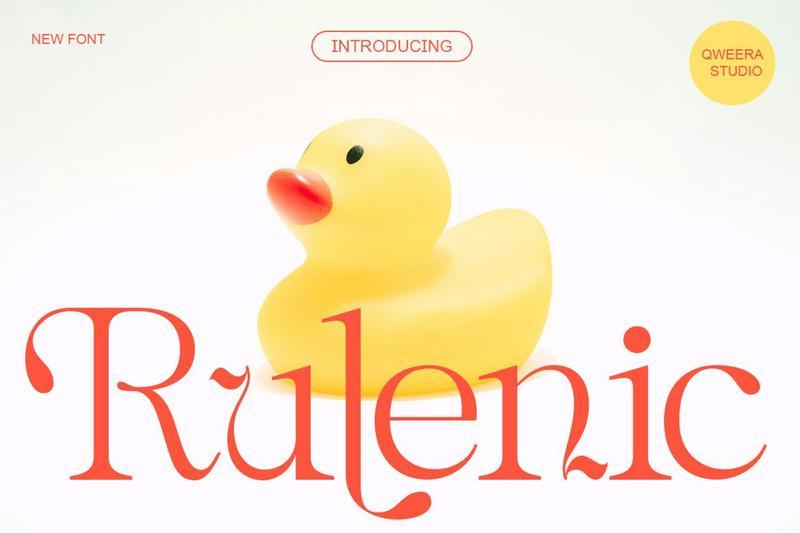
Playful Modern Serif Branding – Rulenic ZEEW2YZ
**Rulenic** is a playful modern serif typeface designed to bring cheerful personality, cute charm, and stylish creativity into modern design projects. Featuring soft curves, fun alternates, and expressive ligatures, this font creates a friendly typographic presence with strong visual appeal.
Perfect for kids branding, toy packaging, birthday invitations, children books, nursery decor, playful logos, product labels, creative merchandise, and cheerful social media graphics.
Rulenic blends cute display character with modern serif structure, making it an excellent choice for designers seeking a fun, memorable, and polished font for bright creative projects.
**Features**
**Perfect For**
Kids branding, toy packaging, birthday invitations, children books, playful logos, product labels, creative merchandise